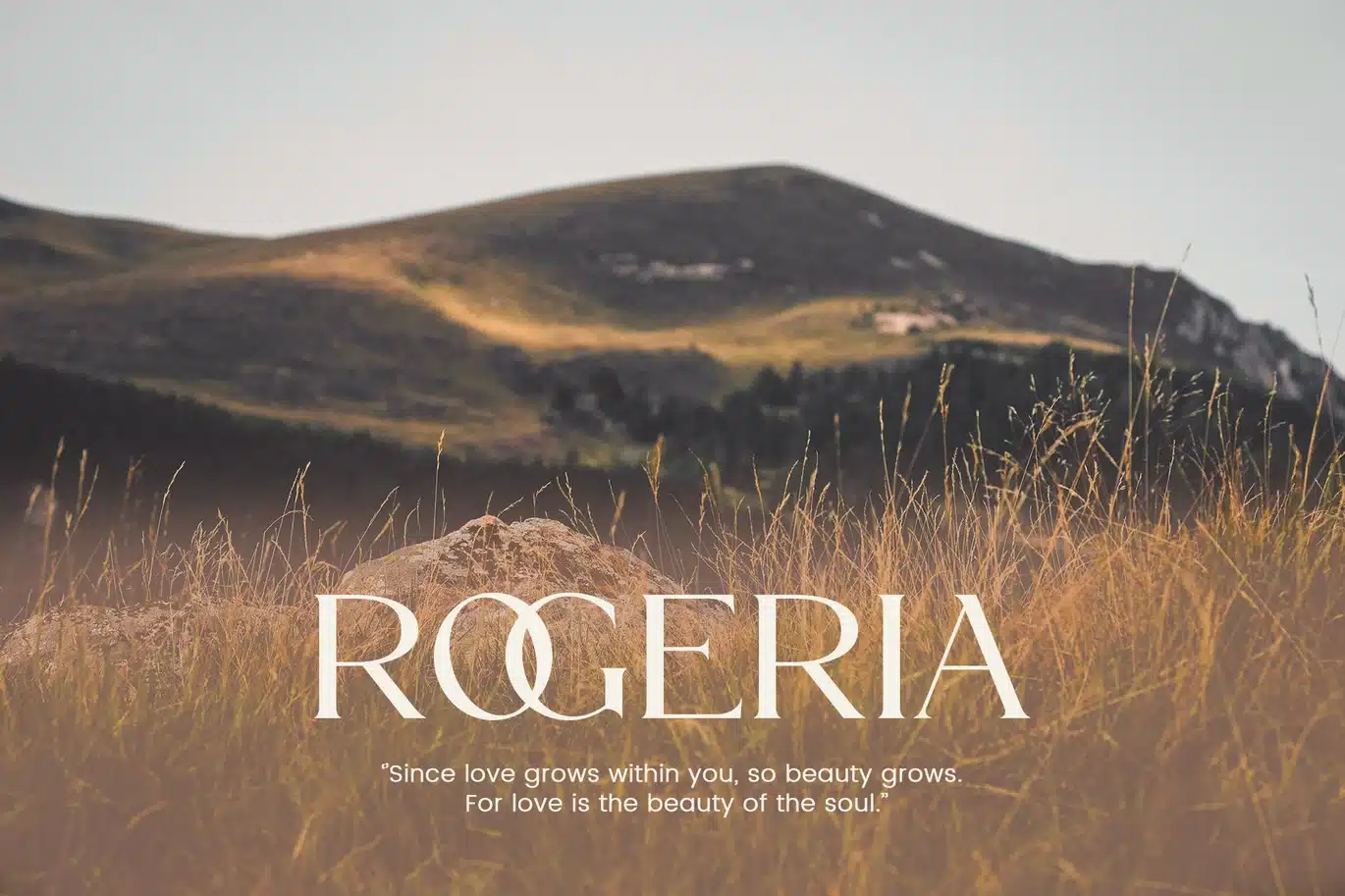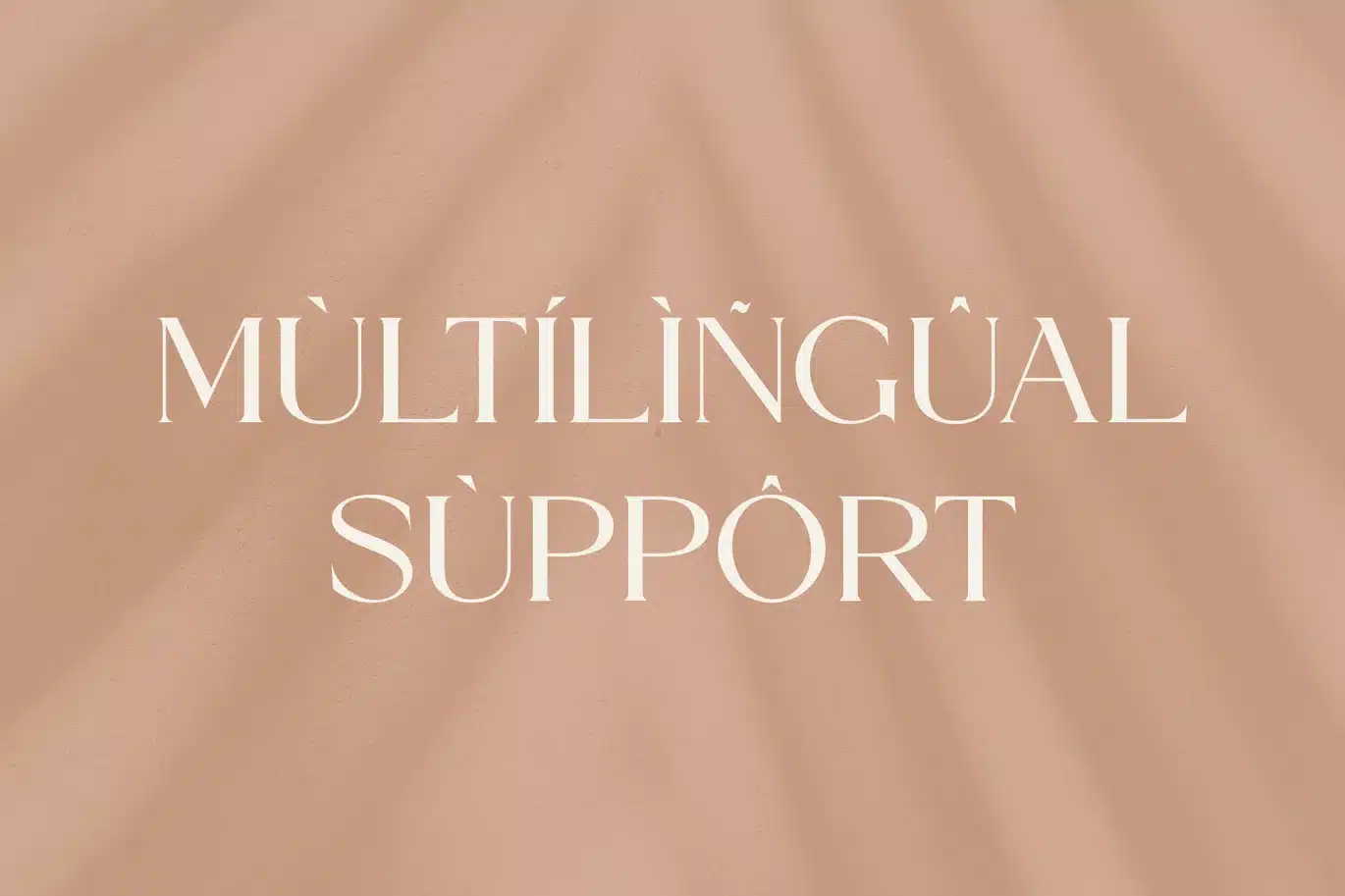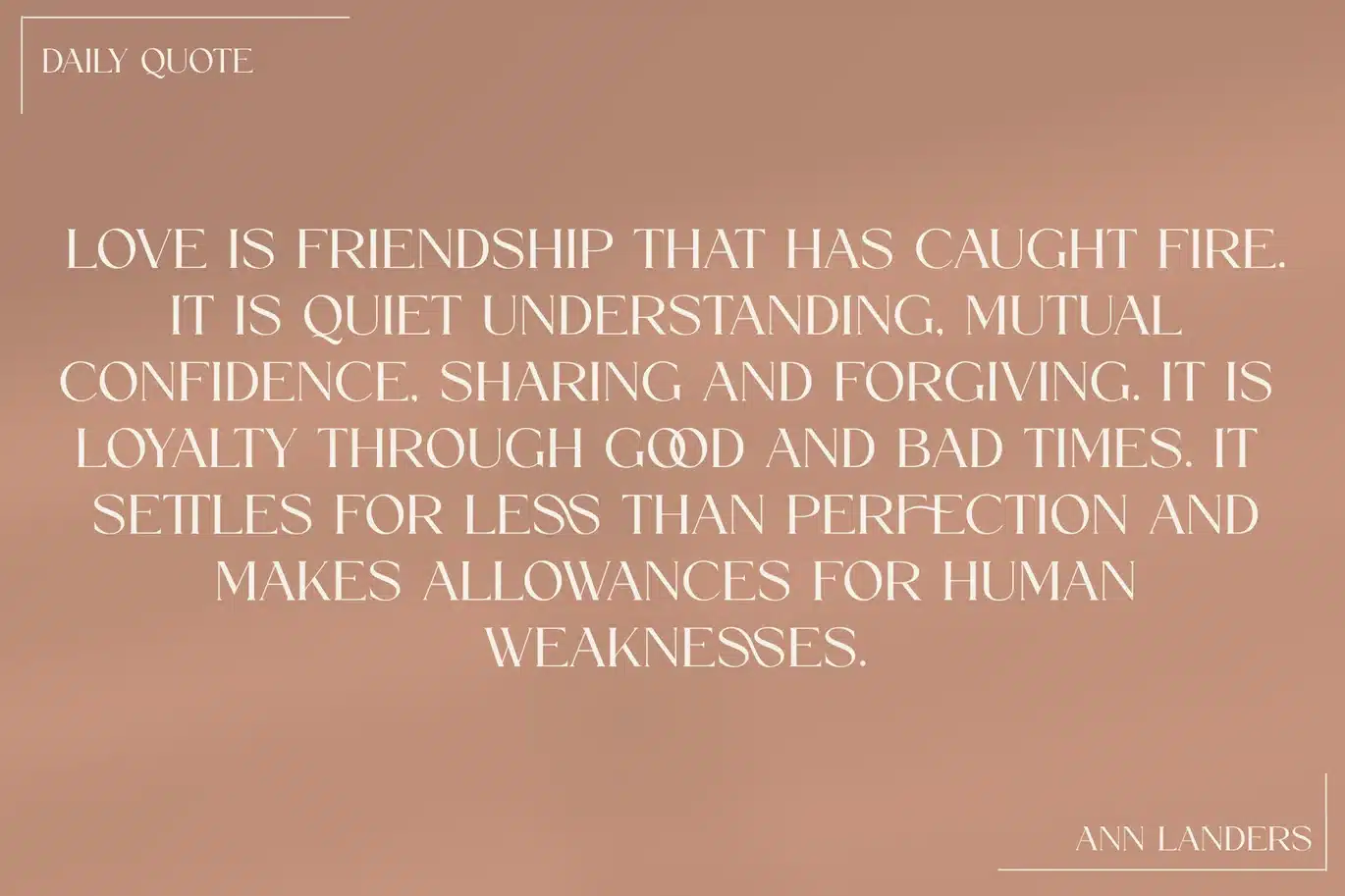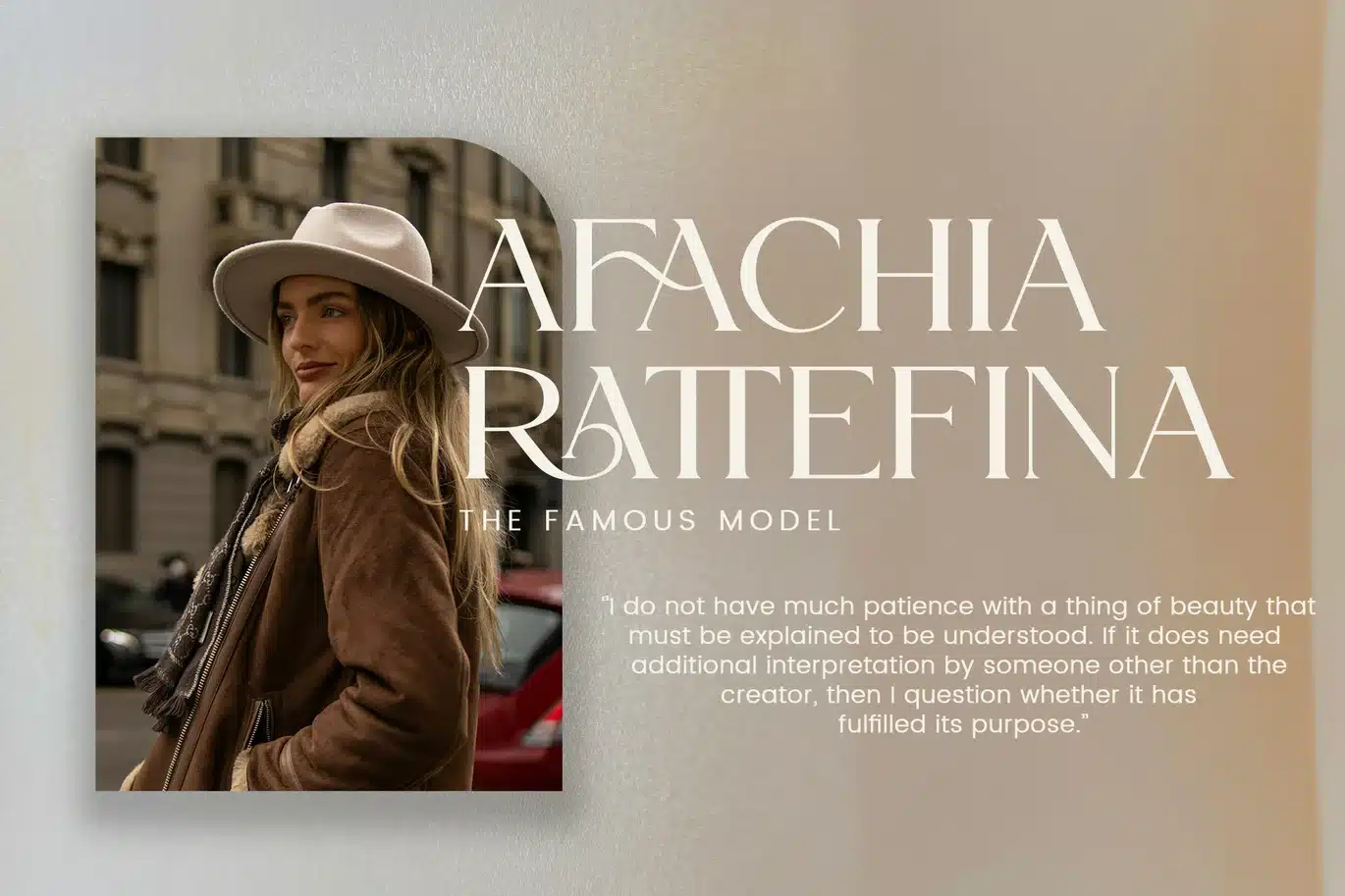
Favora Font
Favora Ligature Serif Font is an elegant and modern serif typeface designed to bring a luxurious, classy, and timeless feel to any project. Featuring beautiful ligatures, refined curves, and stylish letterforms, this font is perfect for creating sophisticated and eye-catching designs. Ideal for branding, logos, wedding invitations, editorial layouts, packaging, fashion campaigns, beauty products, social media content, and other premium design needs. Favora delivers a graceful balance between classic serif charm and contemporary style.
- Uppercase Letters
- Lowercase Letters
- Stylish Ligatures
- Alternate Characters